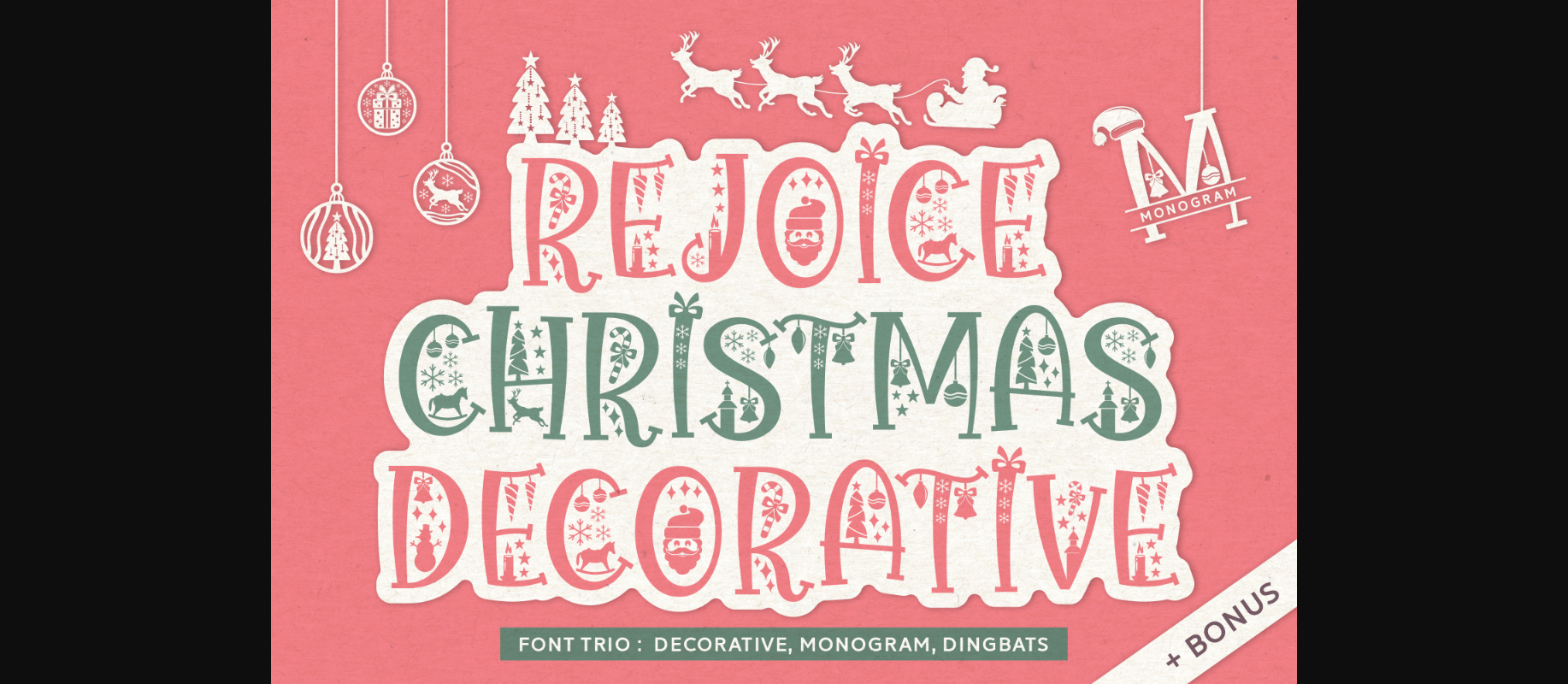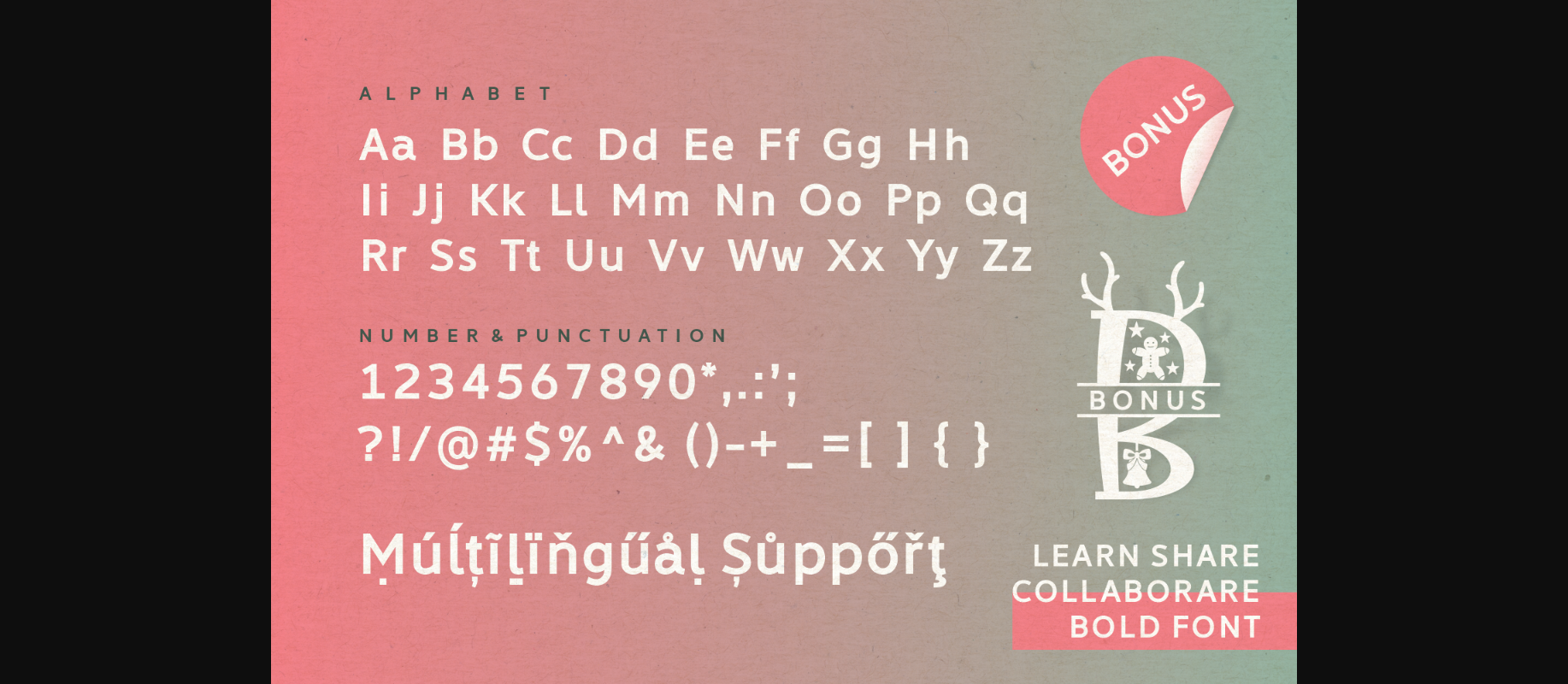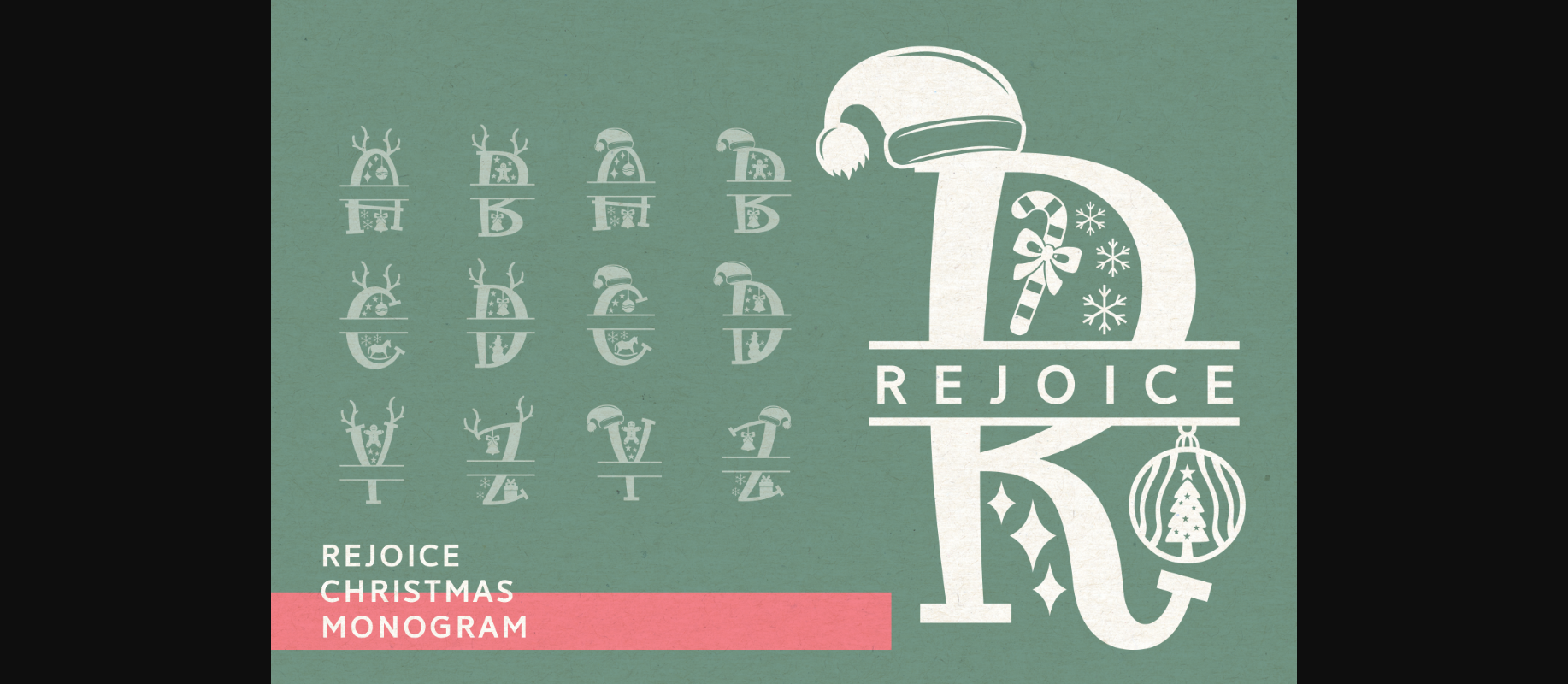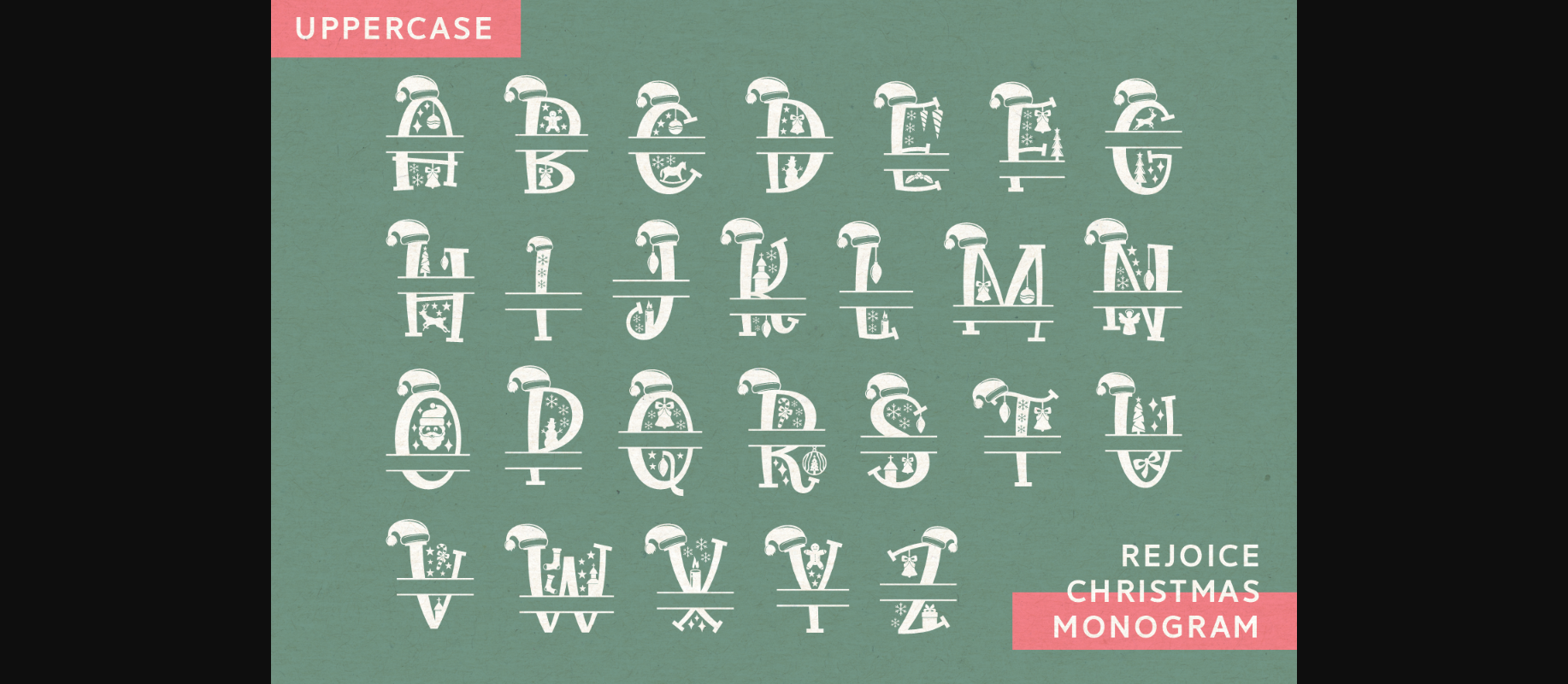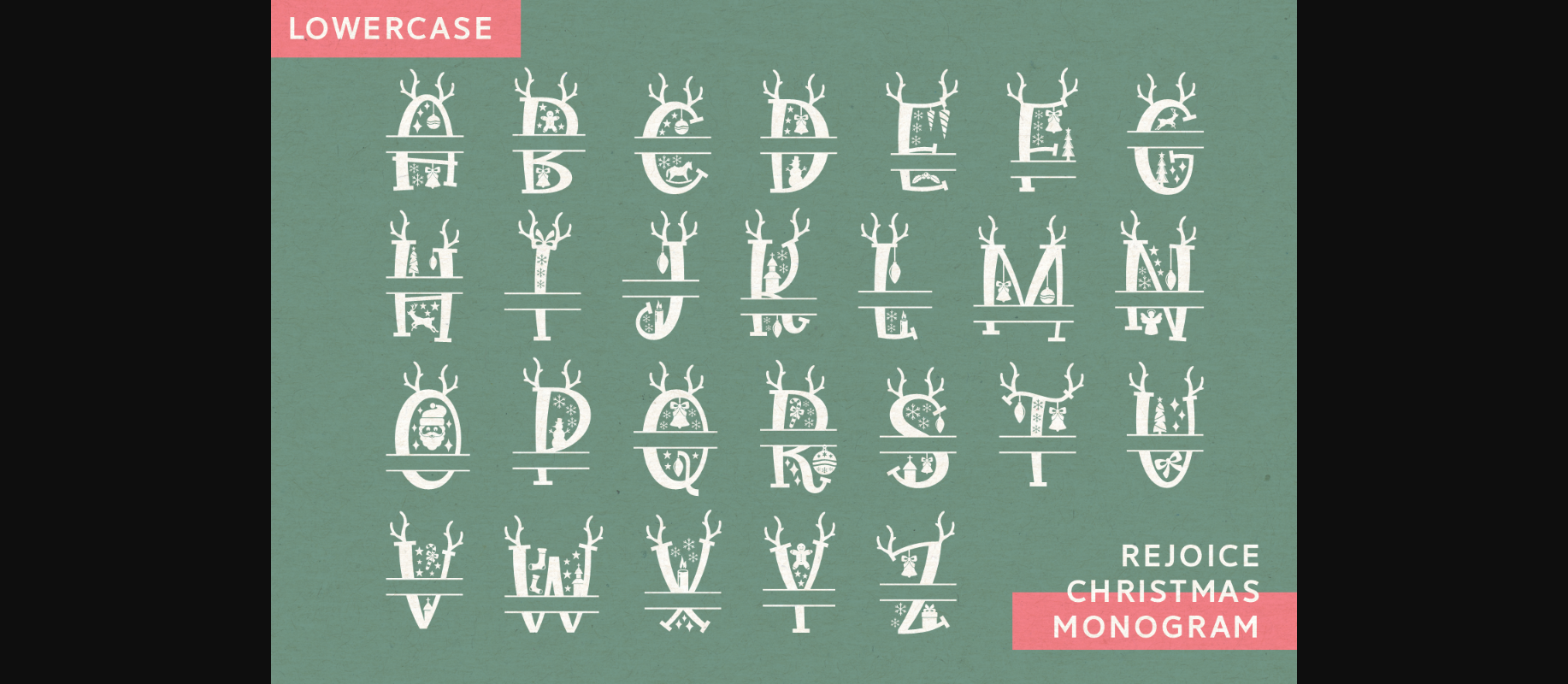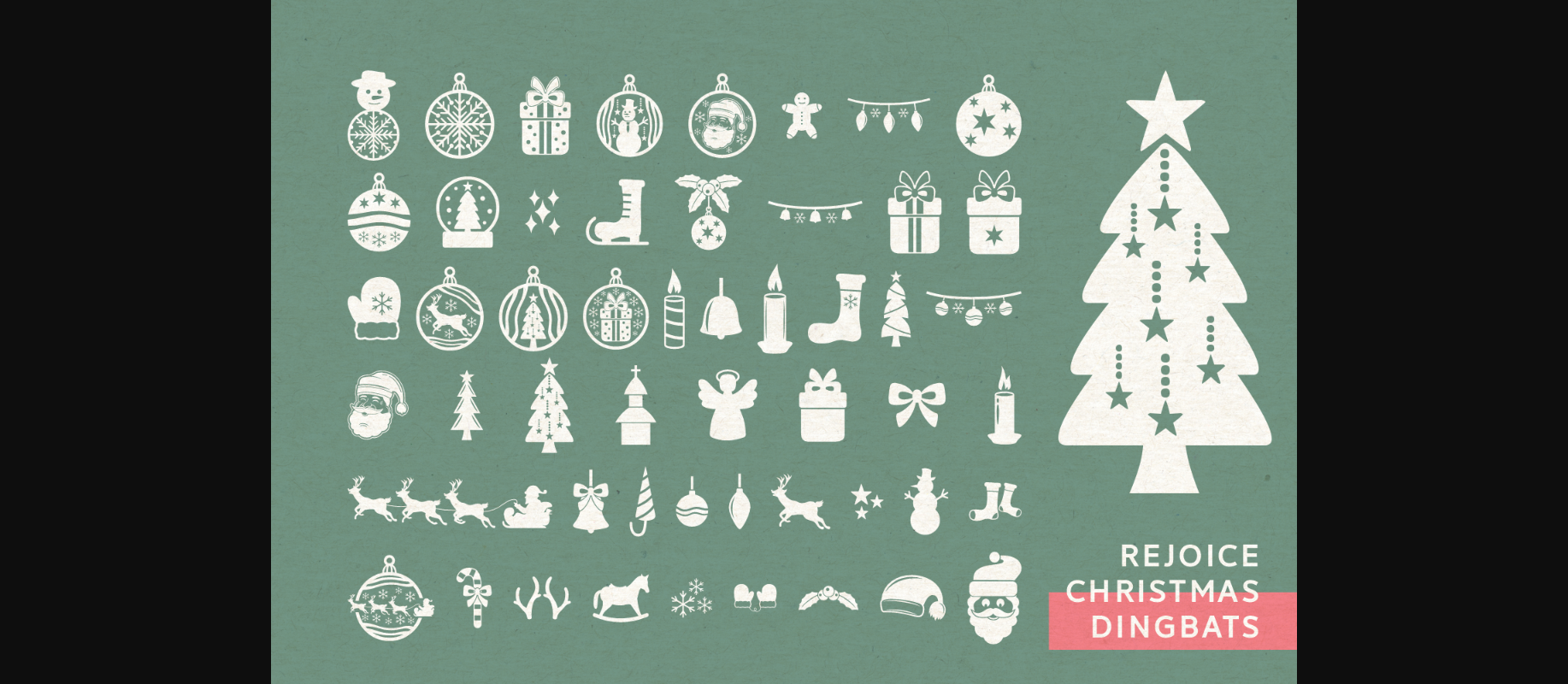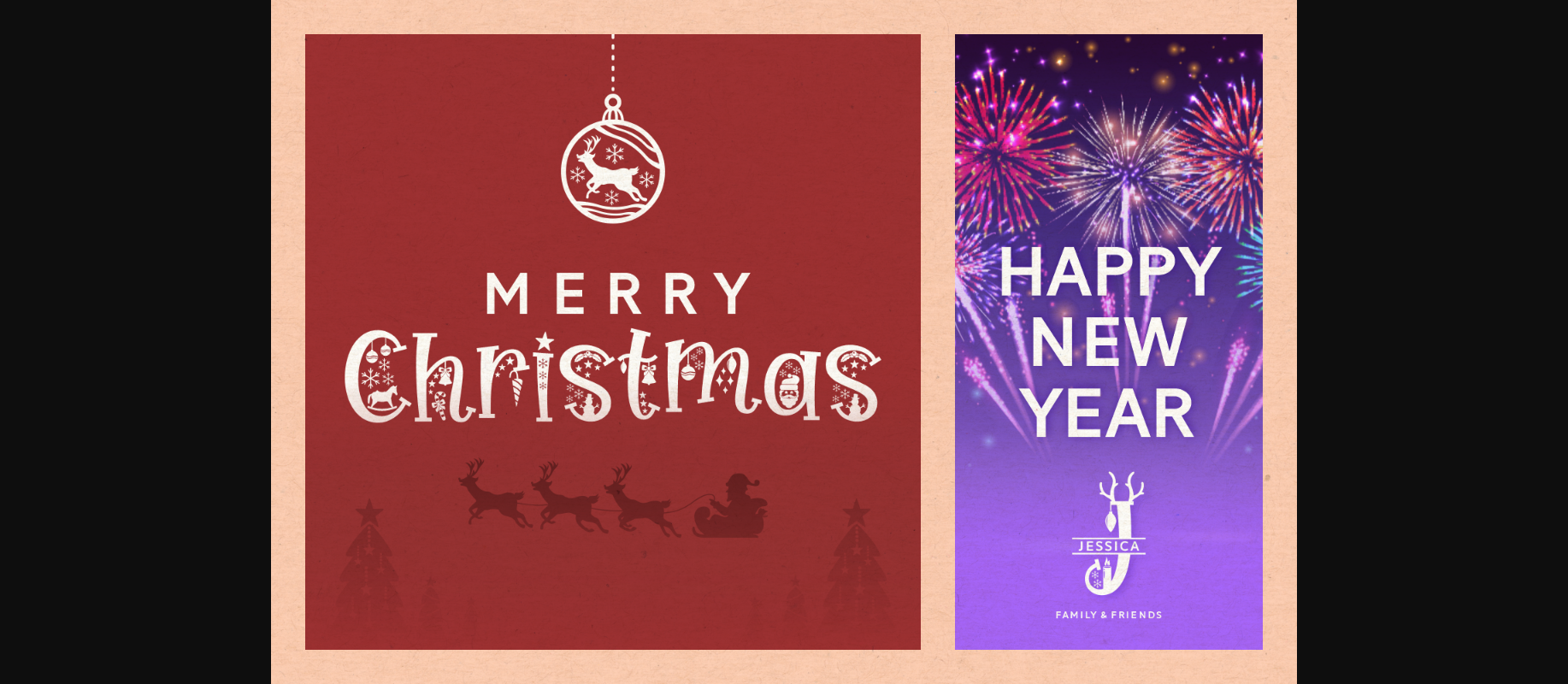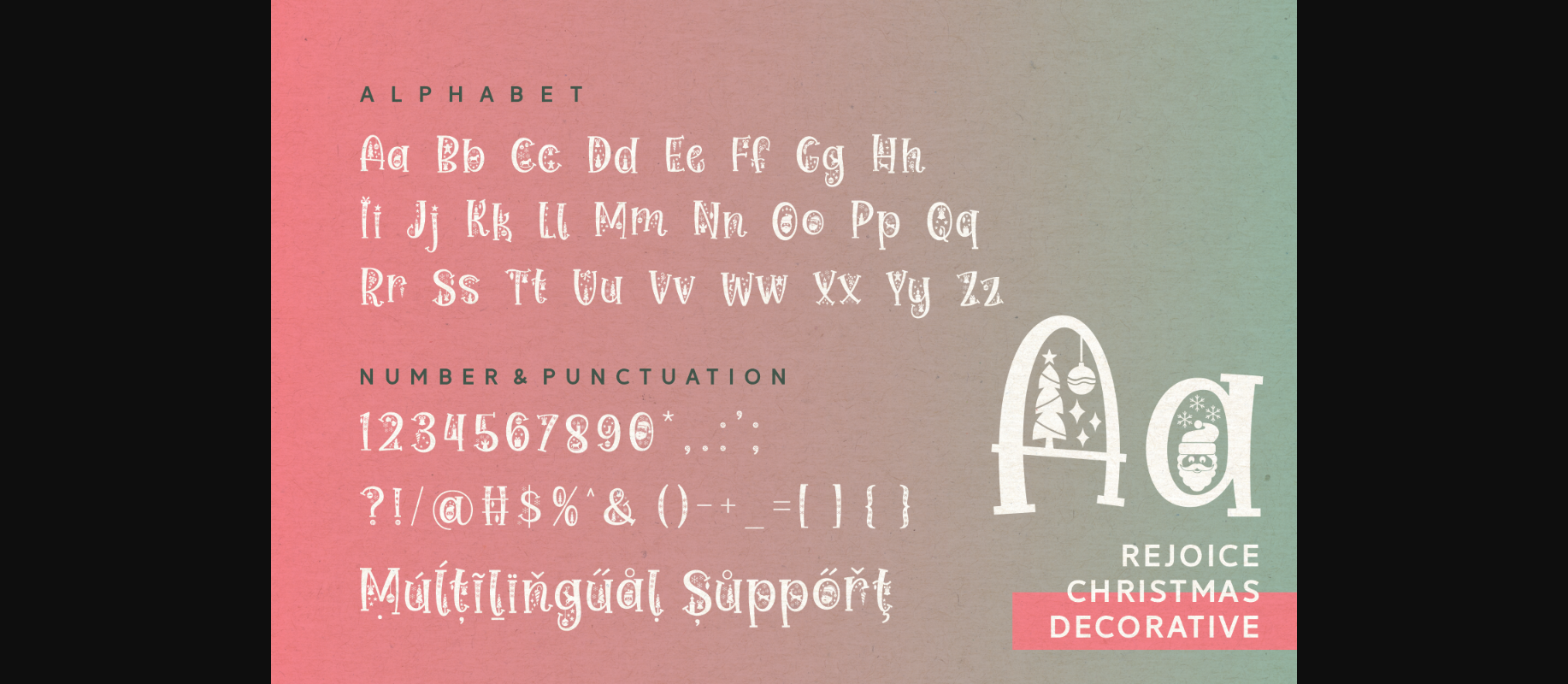
HomeDecorative FontsRejoice Christmas Font Decorative Fonts Rejoice Christmas Font FacebookTwitterPinterestWhatsApp 1 of 10 ... Rejoice Christmas Font Poster 2... Rejoice Christmas Font Poster 3... Rejoice Christmas Font Poster 4... Rejoice Christmas Font Poster 5... Rejoice Christmas Font Poster 6... Rejoice Christmas Font Poster 7... Rejoice Christmas Font Poster 8... Rejoice Christmas Font Poster 9... Rejoice Christmas Font Poster 10... About Rejoice Christmas Font Rejoice Christmas is a festive and highly detailed decorative font. Add it to each of your favorite winter designs and notice how they come to life. DOWNLOAD NOW 175 0 People also explored Shining Love Font Proper Alamsyah Font Summer Calling Font Mini Hearts Font Happy Christmas Font Courageous Font Baby Rat Font Mood Booster Font Halton Font Bahagia Font Biomorph Font TagsRejoice Christmas Font Previous articleCrafty Christmas FontNext articleBeauty Leaves Font LEAVE A REPLY Cancel reply Comment: Please enter your comment! Name:* Please enter your name here Email:* You have entered an incorrect email address! Please enter your email address here Website: Save my name, email, and website in this browser for the next time I comment. Unlock Endless Creativity with the FREE September Clipart Huge Bundle (Valued at $700!) Personal Use Free Kaysan Personal Use Free Read more Yesstea Personal Use Free Read more Open Heart Personal Use Free Read more Santhony Personal Use Free Read more BLOG Transform Your Website: Elevate Your Typography with 7 Best Web Font Generators Are you ready to transform your website's typography from ordinary to extraordinary? Great! Today, we're diving into the world of web font generators, which... Exploring Font Trends Top 7 Google Fonts Alternatives for Faster and Privacy-Friendly Web Design (2025) Using Fonts in Digital Marketing: Tips to Strengthen Your Brand Identity